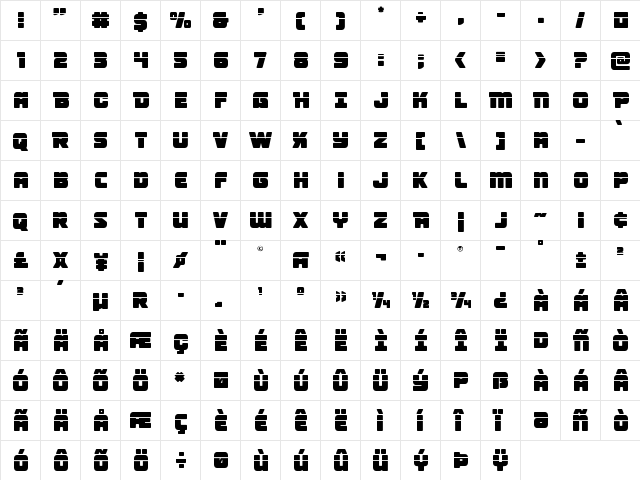
Victory Comics Laser Regular
Design Context for Victory Comics Laser Typeface
Victory Comics Laser trades formality for fun, with bouncy, characterful letterforms that bring warmth and energy to any project.
Font Pairing: Pairs well with a rounded or humanist sans for body copy, maintaining the friendly tone without relying on Victory Comics Laser to carry extended reading.
Pro Tip: Avoid using Victory Comics Laser for long passages of text — it works best for headlines, labels, and short calls to action.